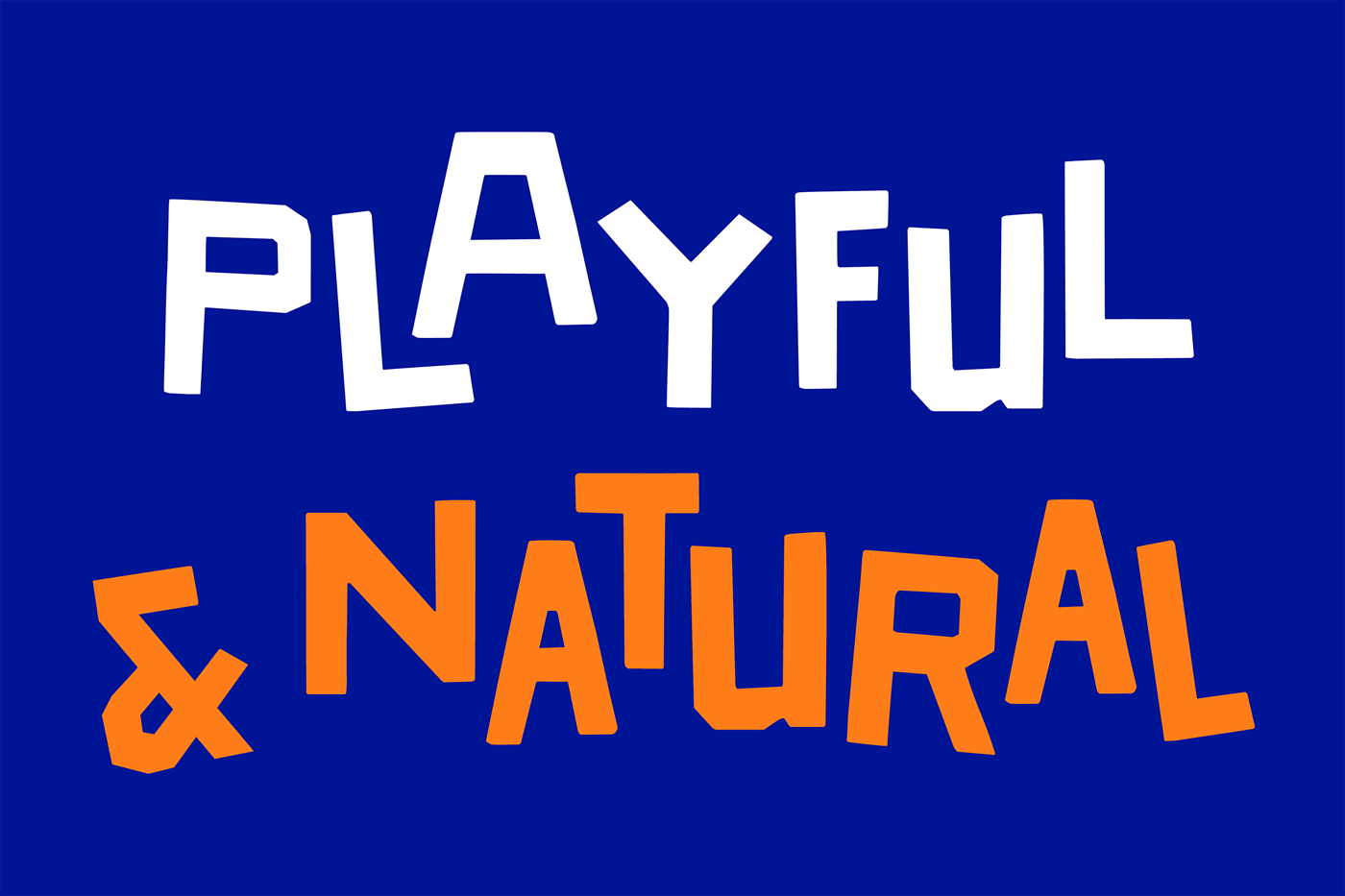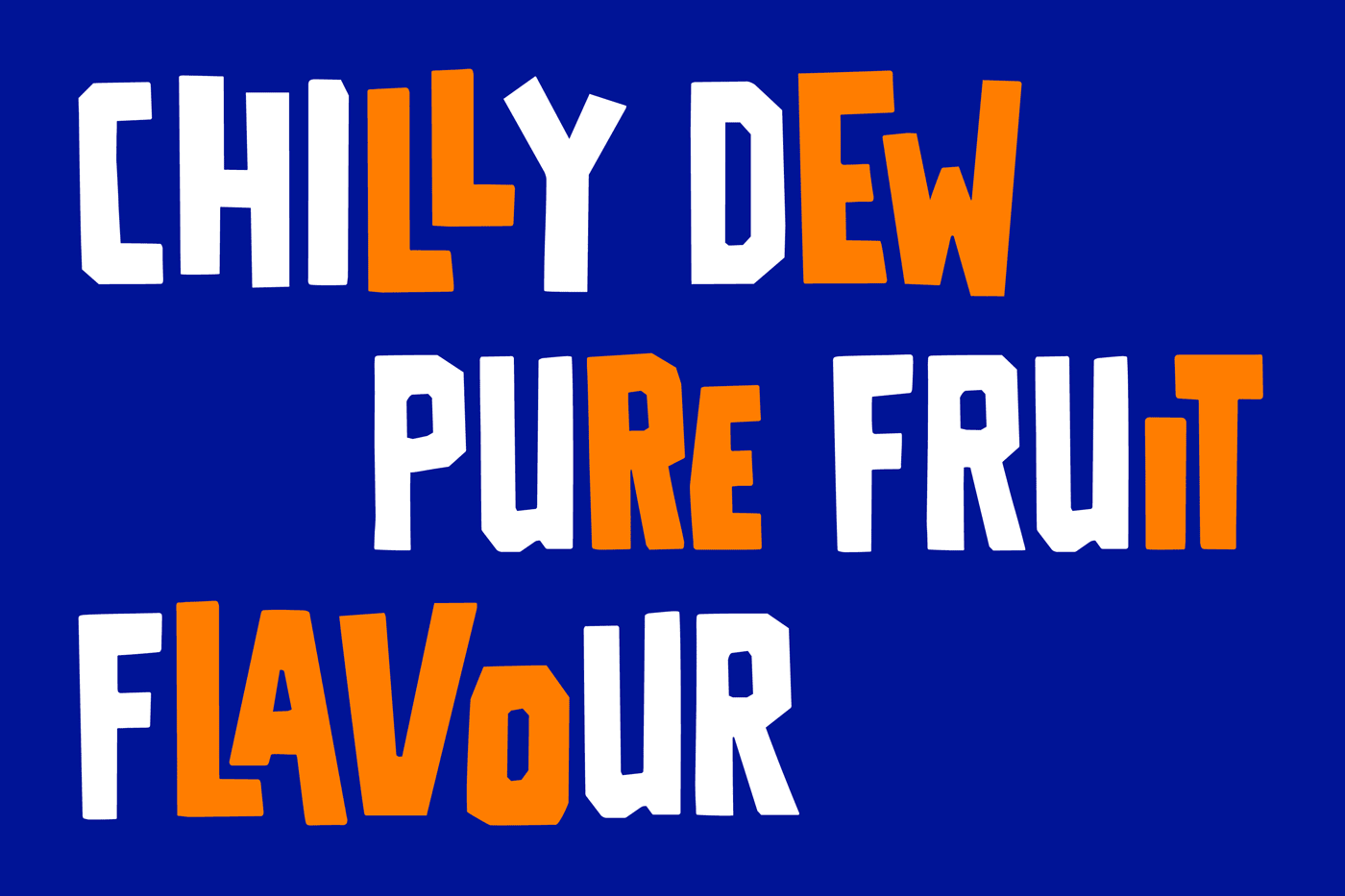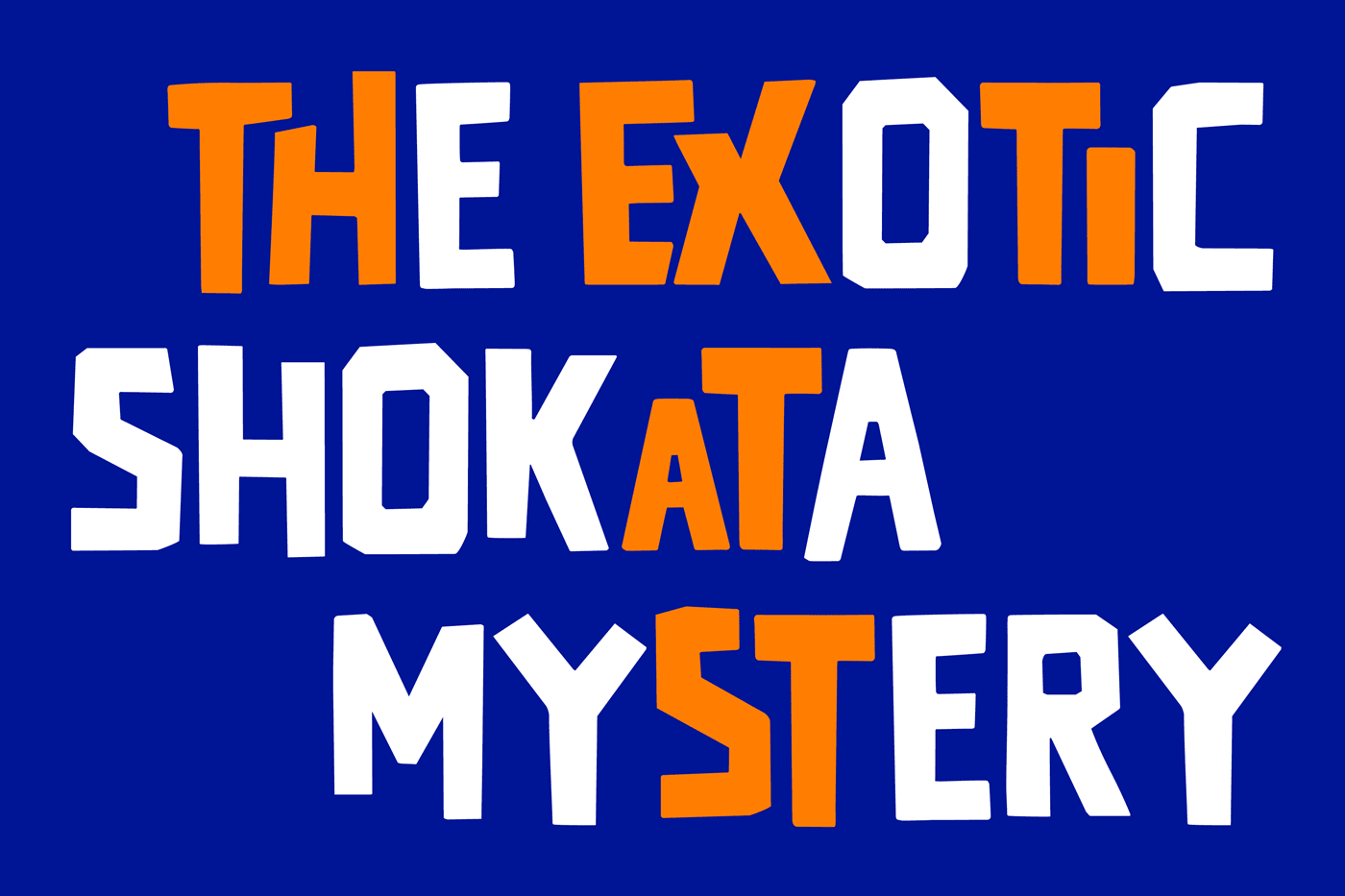
Fanta
Working closely with international creative teams at The Coca-Cola Company, London-based Studio Koto was asked to reimagine Fanta’s worldwide brand identity, and turned to Colophon Foundry to assist in crafting a trio of types that would convey the historic soft drink’s evolving identity—from humble wartime creation (1940) to re-engineered classic (1955) to the globally-recognised beverage it is today, with 90+ flavours distributed across more than 60 countries over six continents.
The brand refresh demanded a bold, youthful, vibrant typographic identity that spoke to notions of Craft (the hand-made) while avoiding the identifiable marks of any region-specific writing tool (pen, marker, paintbrush, etc.). To this end, a semi-literal three-‘cut’ typeface was created with collage in mind, resulting in Condensed, Regular, and Expanded sets of letterforms that subtly appear rendered from cut paper.
Additional features abound across these three styles, making the already-playful type into a dynamic, frequently-changing device that conjures the appearance of being trimmed and set by hand.
Contextual ‘ligatures’ throughout create lively moments of nesting and interlocking letter pairs; meanwhile automated stylistic alternates ensure that repeating adjecent letterforms will never appear the same way twice.
Fanta Condensed presents a lean, vertical construction perfect for smaller horizontal allotments and assertive headlines; Fanta Regular hews closest in proportion to a Roman type while still preserving a slightly compressed stature that proves perfect for everyday display usage; and Fanta Extended is the somewhat unruly, outsize sibling to its Condensed and Regular family members. Each of these ‘cuts’ can be used independently or mixed-and-matched for further rhythmic theme and variation.
When Fanta creator Max Keith initially pitched the carbonated libation to parent company Coca-Cola in 1940, he is quoted as having proudly stated that the drink’s ingredients were ‘the leftovers of the leftovers’. Indeed, this from-the-[paper] scraps mentality suited the commission perfectly, resulting in a light-hearted yet sturdy set of typographic tools that prize an expressive approach to brand refreshment.
Typeface: Fanta
Commissioner: Studio Koto, London
3 Styles: Condensed, Regular, Expanded
Classification: Papercut Display